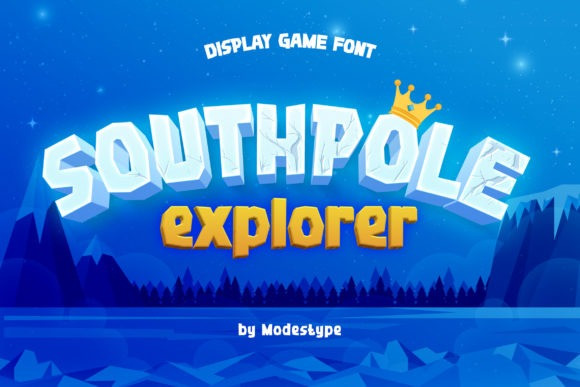
Southpole Explorer Font
Southpole Explorer Font is a cool, chunky lettered and fun display font. It works great for cartoon designs, playful creations or pretty much anything related to fun and joy.